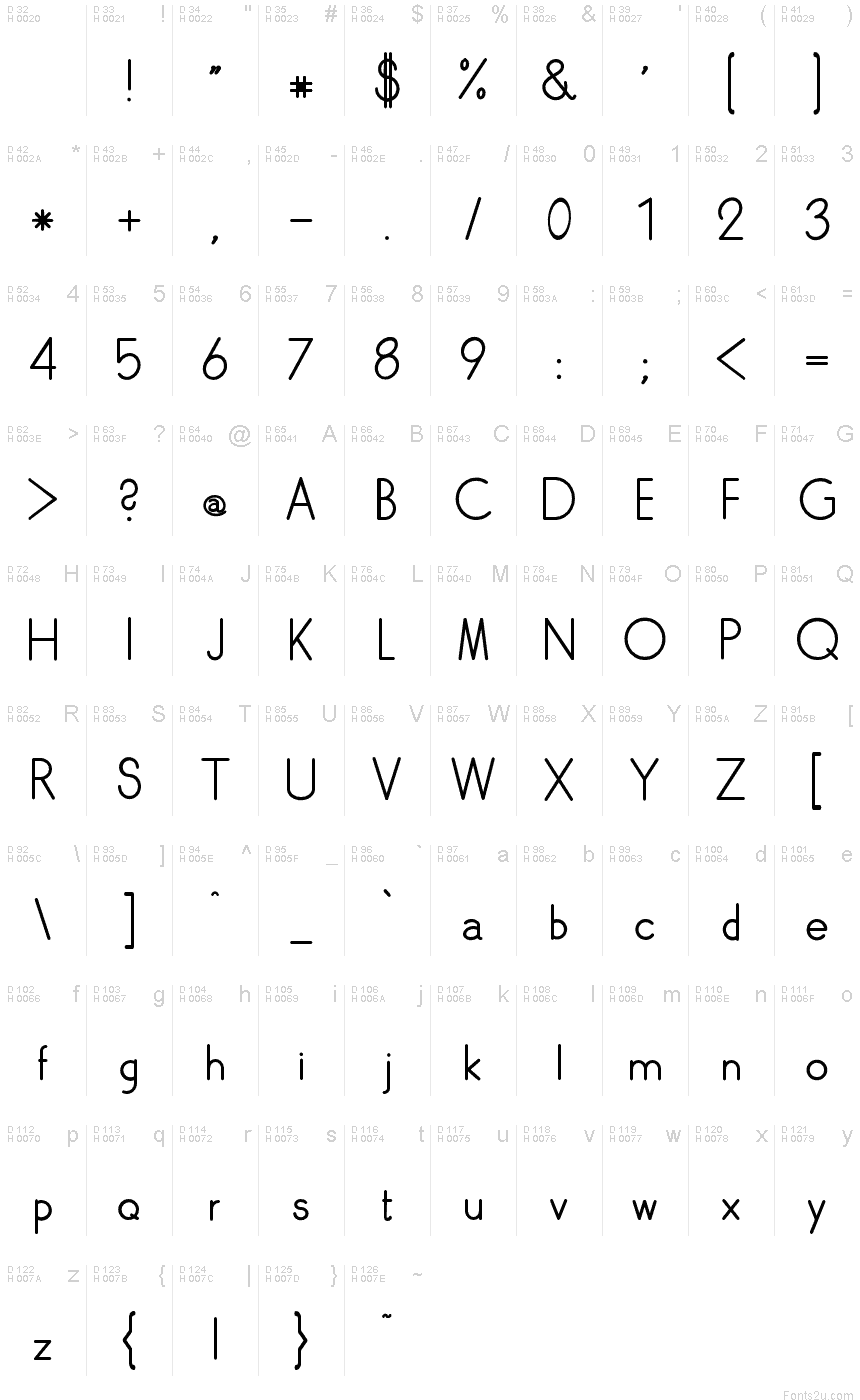
Skarpa LT by Aga Silva is a free contemporary sans serif with tall, slender letters, delicate mostly even strokes, and softly rounded ends. Proportions shift across the alphabet, from broad curves to compressed upright forms.
Fashion branding and children's publishing can both draw on its airy, slightly quirky shapes, though they speak to very different audiences. It also suits cafe packaging, arts-event posters, and independent music merchandise, where the loose geometry can echo simple line illustrations and an upbeat urban theme.